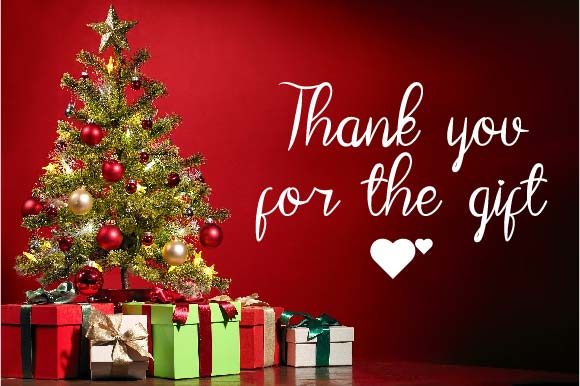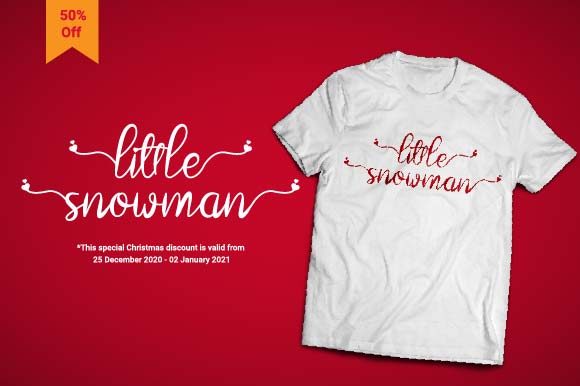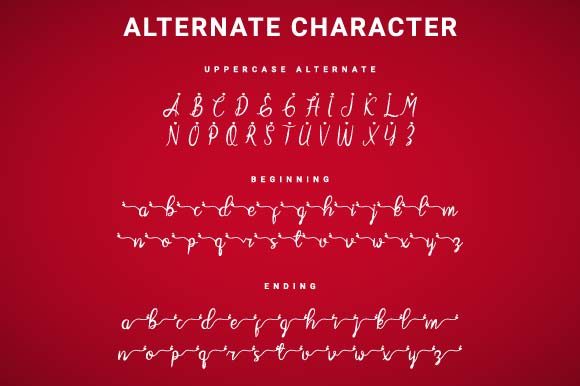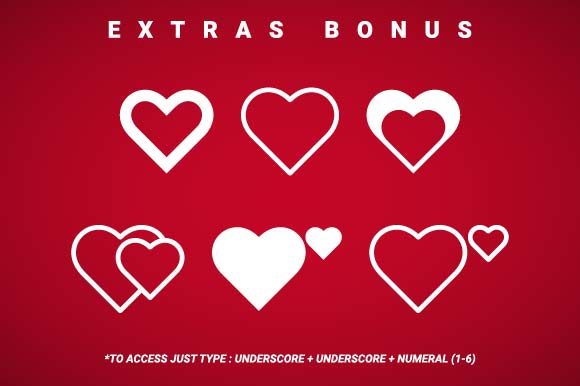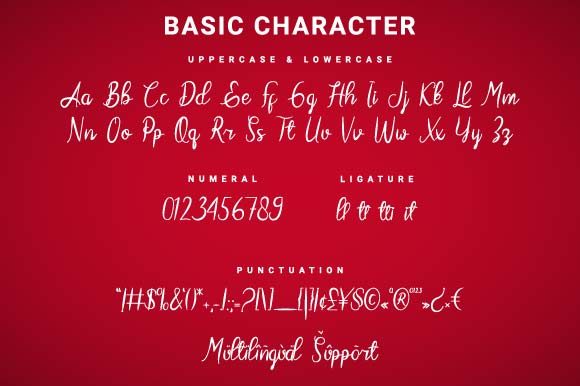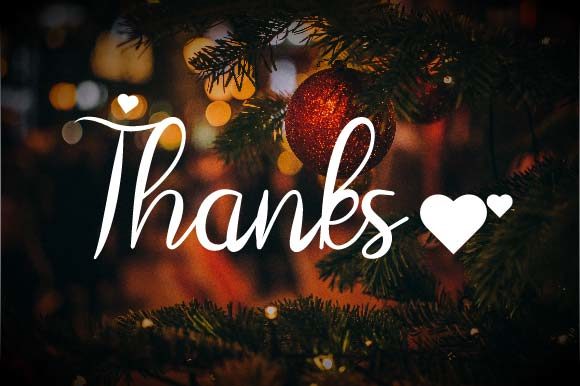
About Super Love Christmas Font
Super Love Christmas is a romantic and sweet calligraphy typeface with characters that dance along the baseline. It has a casual, yet elegant touch. This font is PUA encoded which means you can access all of the glyphs and swashes with ease!